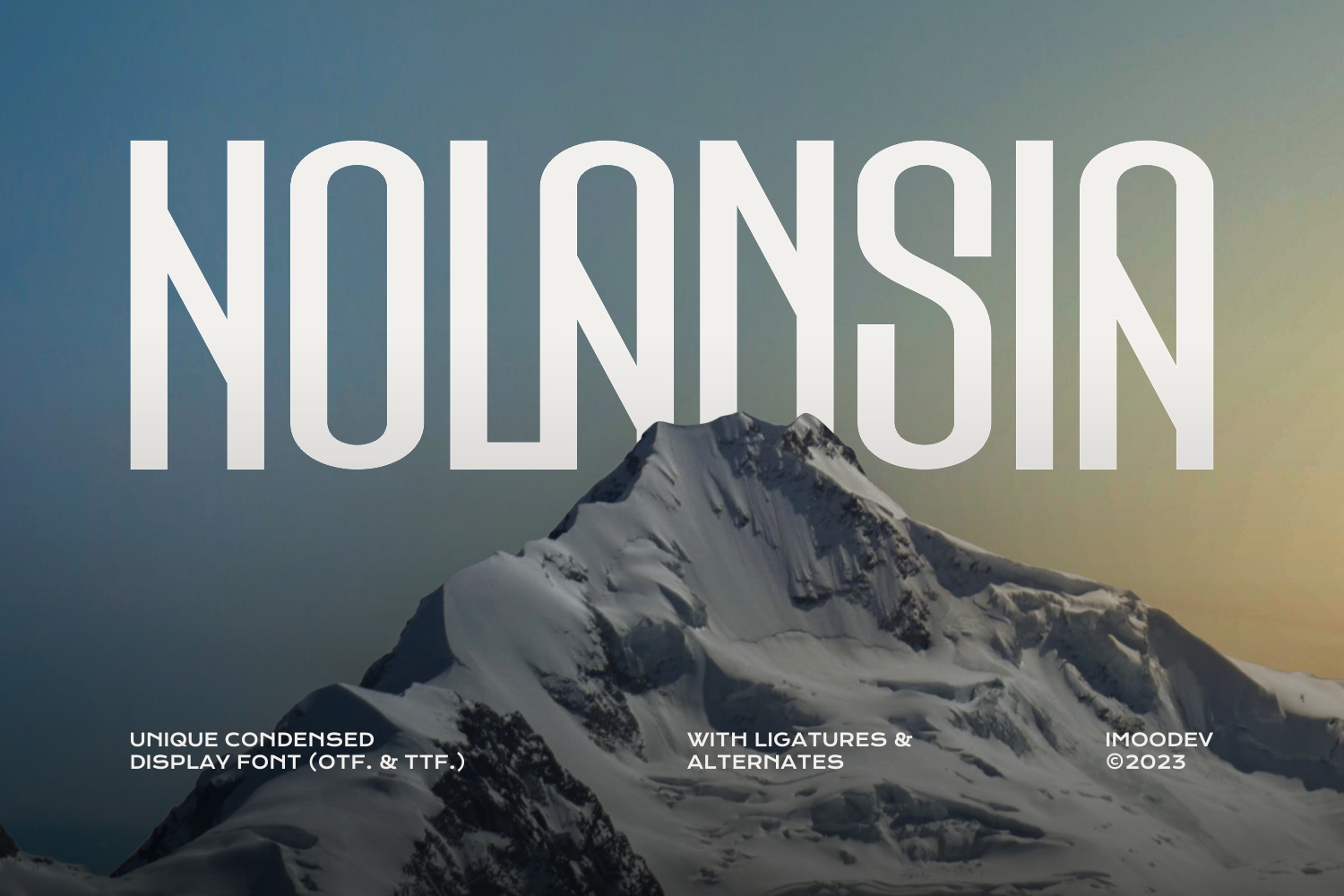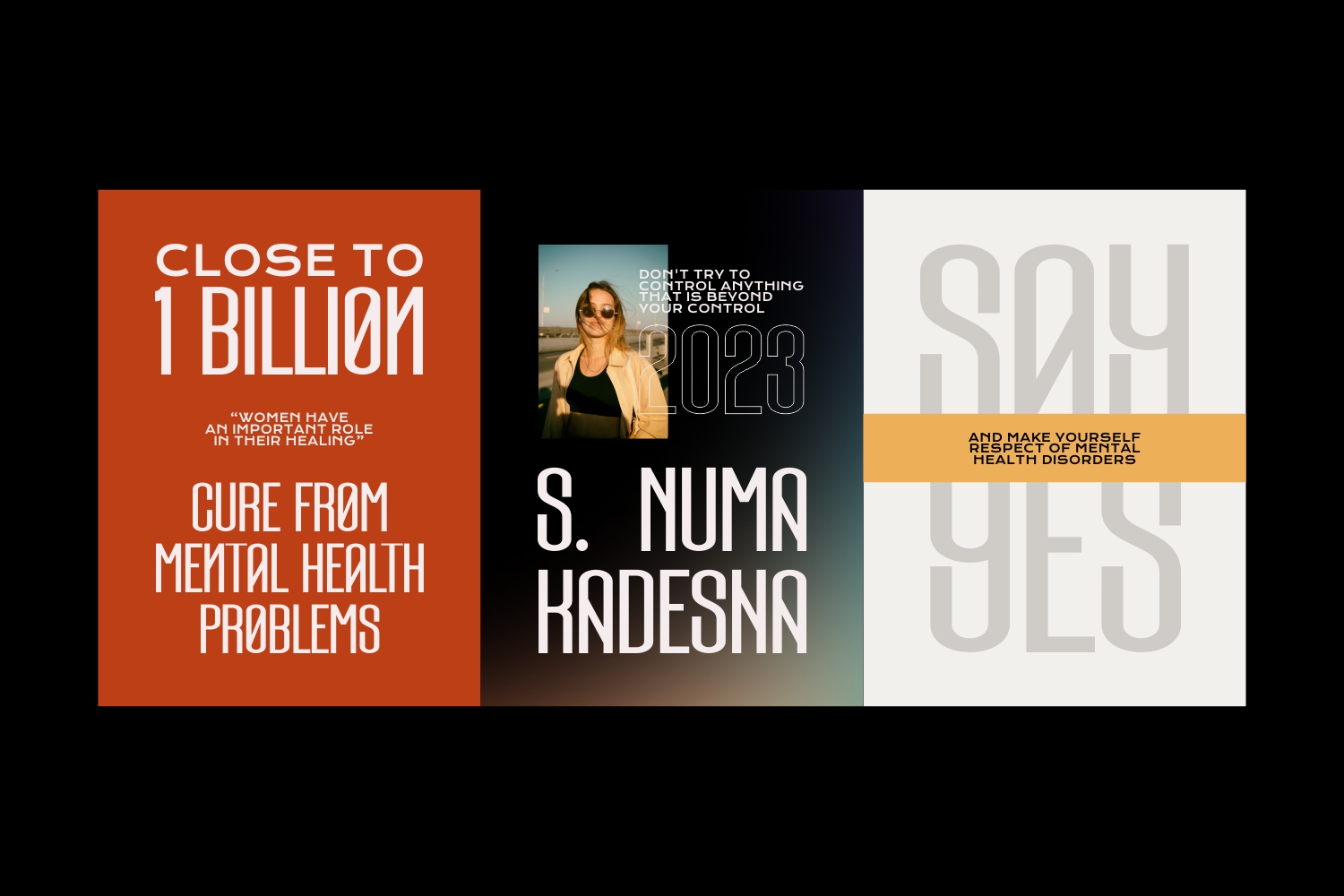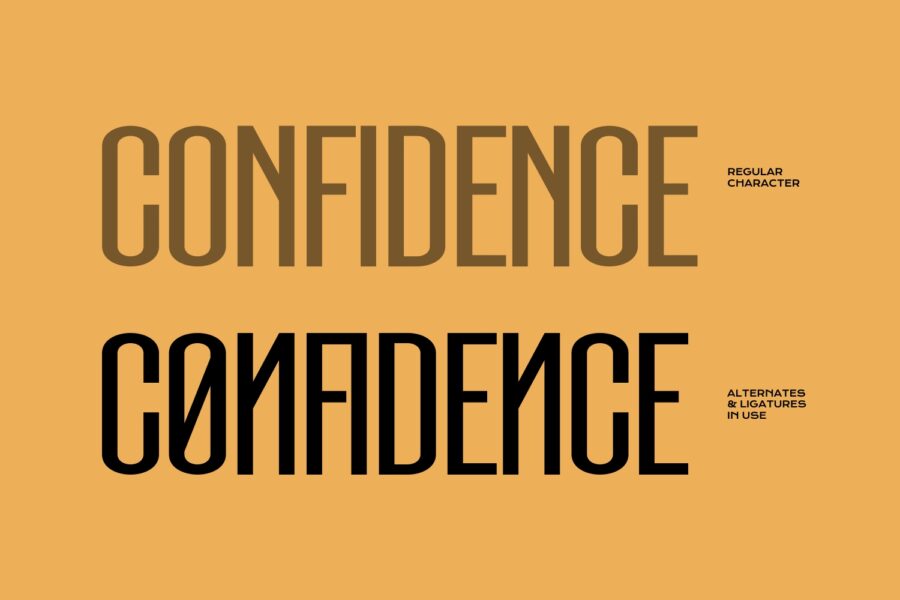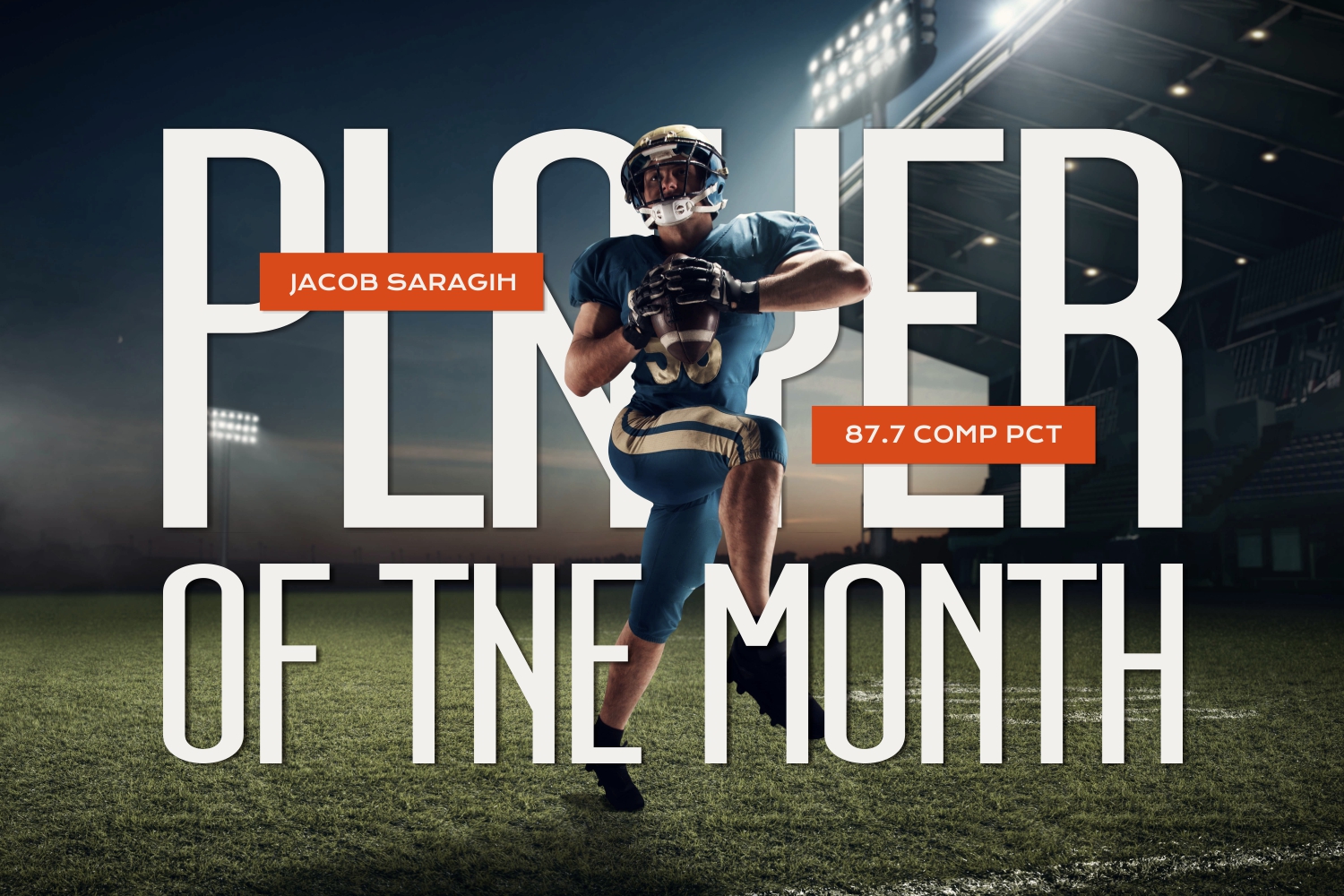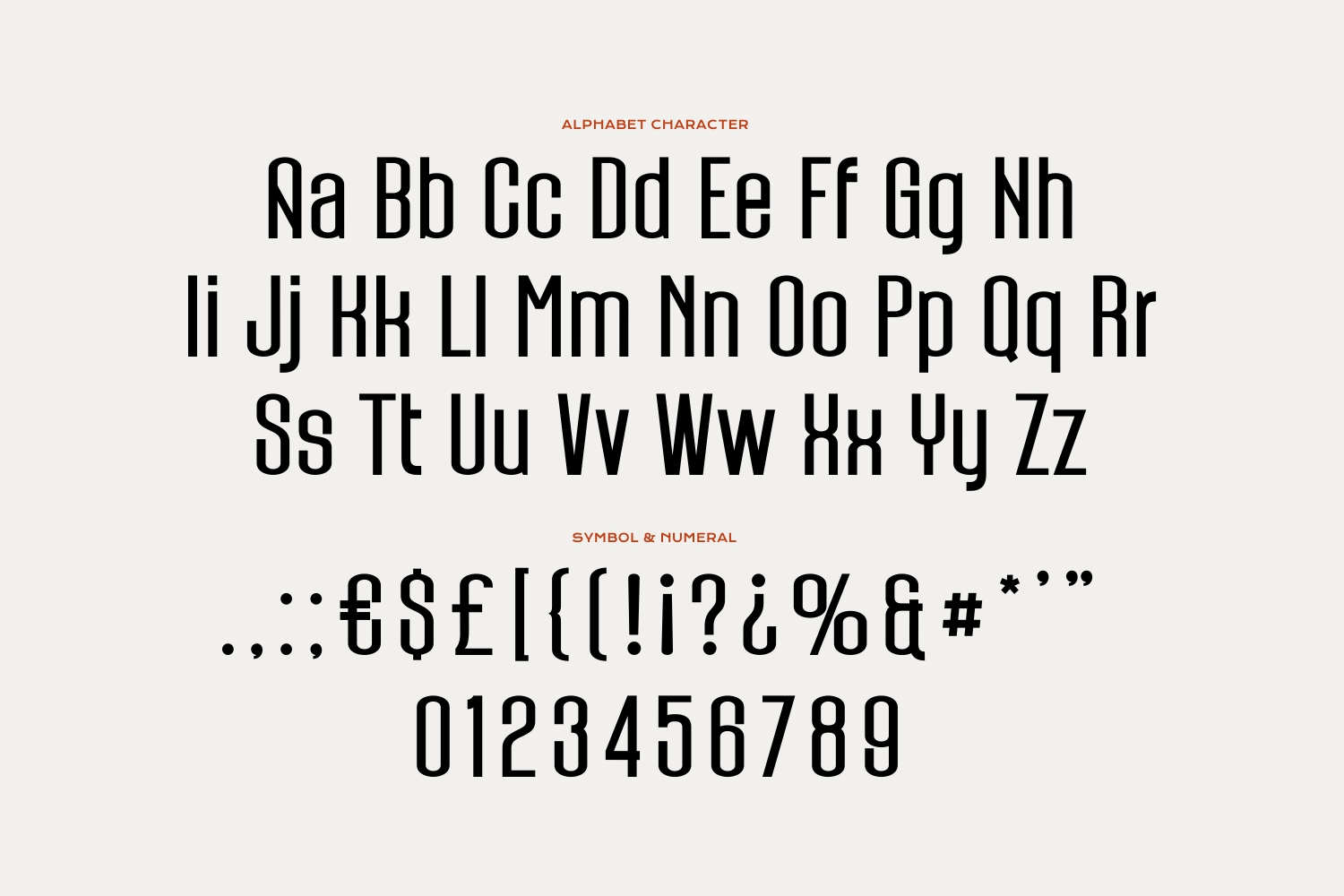
Holansia is a unique condensed display font that embodies elegance and modern sophistication. With its tall, narrow letterforms, this font is perfect for creating impactful headlines, stylish branding, editorial designs, and striking posters. It offers a balance between contemporary aesthetics and timeless character, making it suitable for both fashion-forward and professional projects. The clean lines combined with its bold vertical presence make Holansia a versatile choice for designers looking to make a strong visual statement.
This font also comes with ligatures and alternates that add flexibility and creativity to your design workflow. Holansia supports various symbols, numerals, and multilingual characters, allowing it to adapt seamlessly across different contexts and audiences. Whether used in minimalist layouts or bold creative projects, Holansia ensures that your typography stands out with clarity and elegance.
Holansia